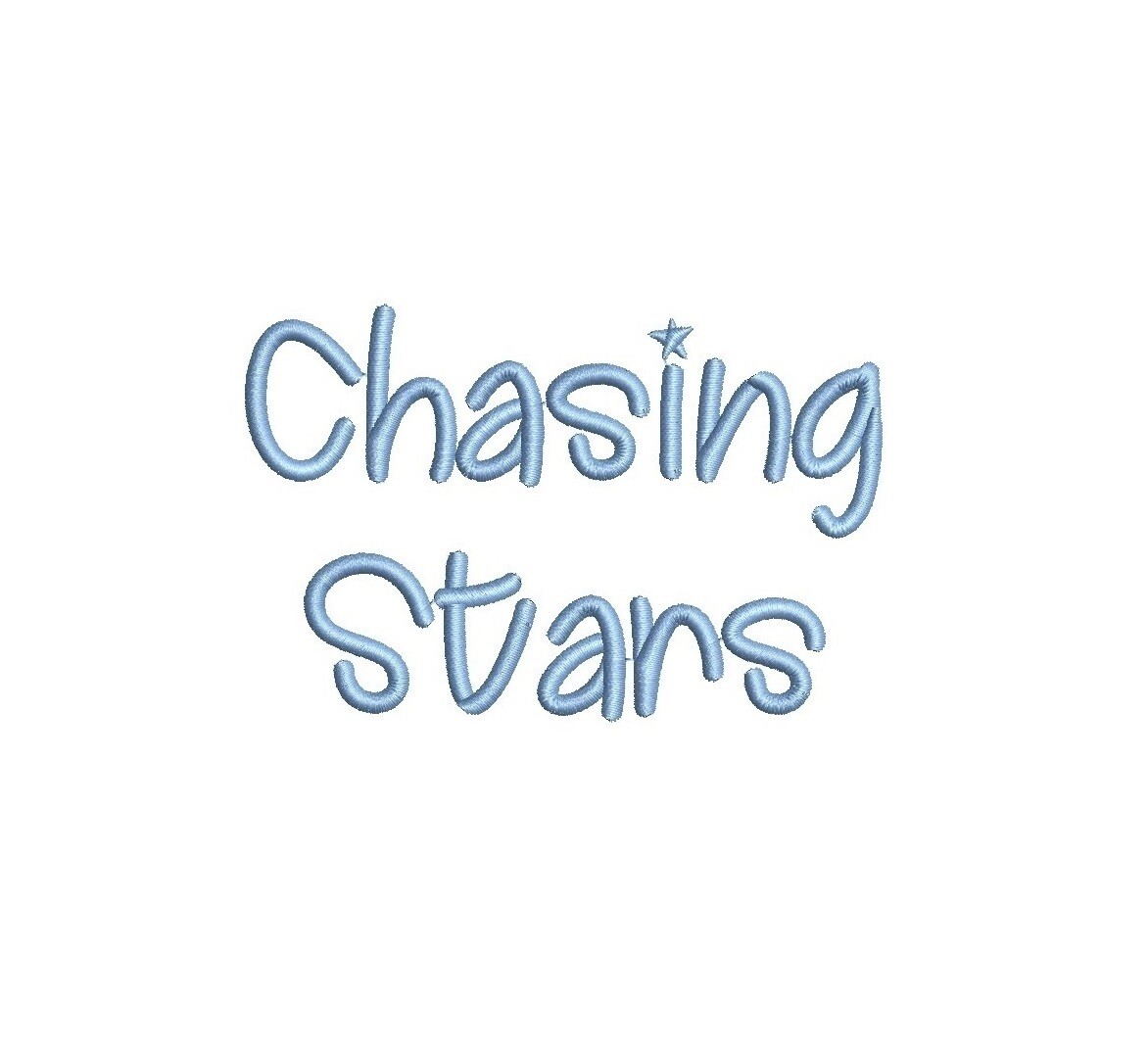
Discover the celestial allure of Chasing Stars Regular ESA font, a captivating choice for your design ventures. This enchanting typeface ensures seamless compatibility with Wilcom Studio e4.5.6 and Hatch 3 versions and above. Crafted with meticulous precision, its graceful letterforms and starry elements infuse your creations with cosmic charm. Elevate your designs with Chasing Stars Regular ESA's versatility, perfect for celestial themes, invitations, branding, and more. Let your creativity shine as you capture the brilliance of stars with this font, tailored for Wilcom Studio e4.5.6 and Hatch 3 versions and beyond. Embrace the magic of the cosmos with Chasing Stars ESA font.